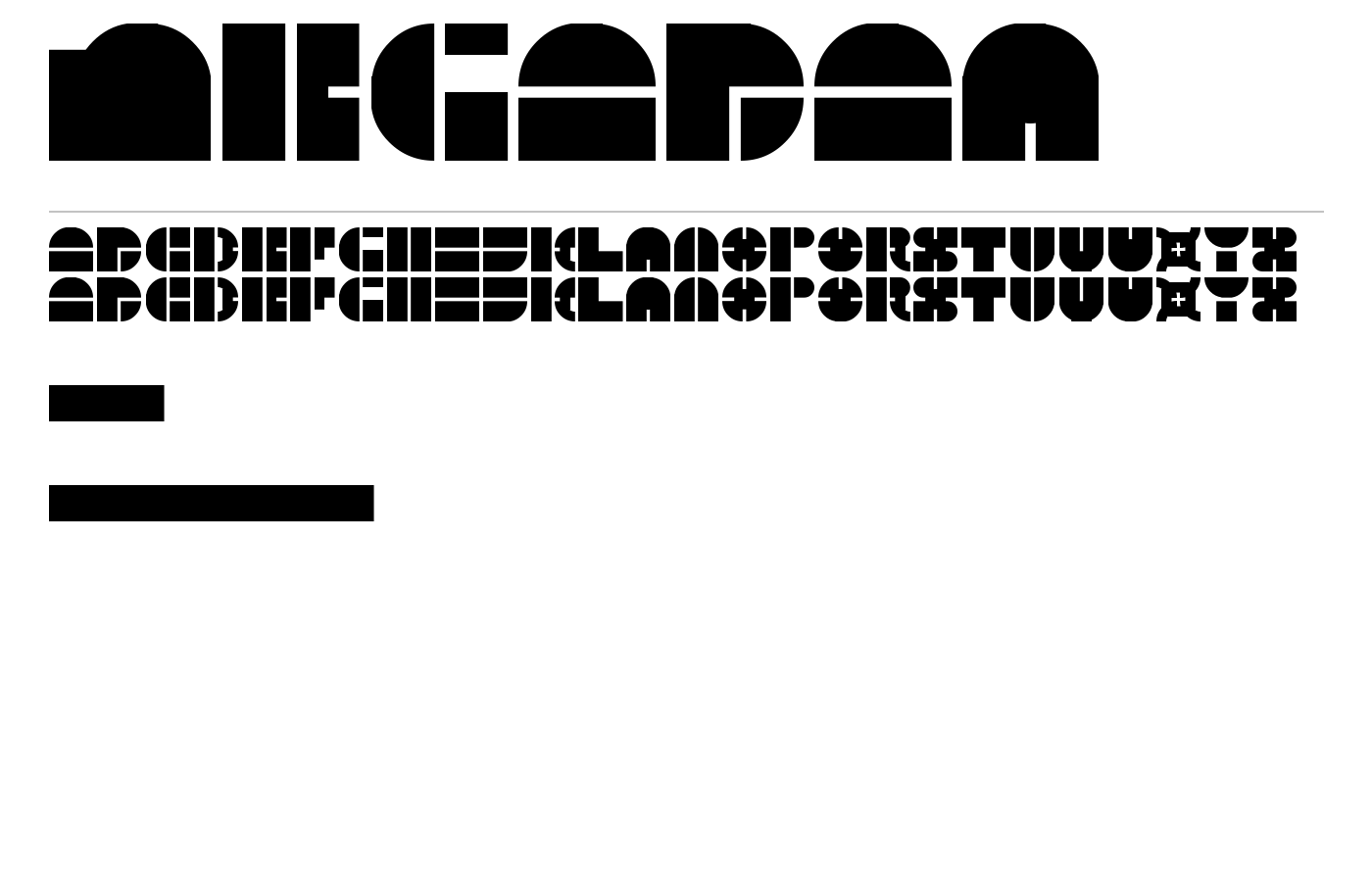
5Megabam is an avant-garde, bold display font featuring heavy, geometric shapes with strong contrasts between solid black blocks and negative space. Its all-caps design, characterized by modular curves and sharp edges, creates a futuristic and artistic vibe ideal for striking headlines, logos, and creative branding that demands attention and a modern, edgy look. This font is perfect for projects seeking a unique and powerful visual impact.
5Megabam Font
About 5Megabam Font
| Designer | Noah - 11 year old typomaniac |